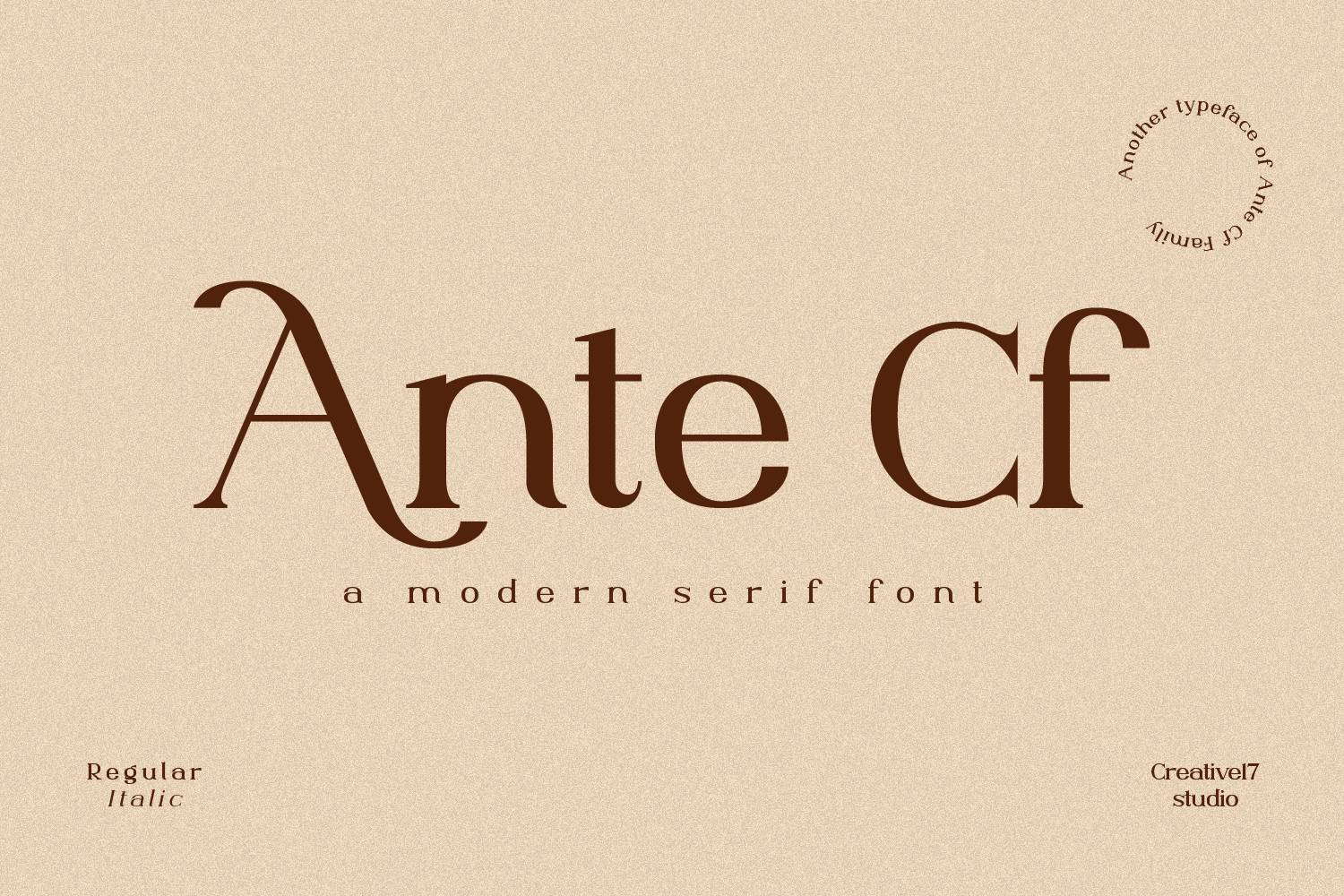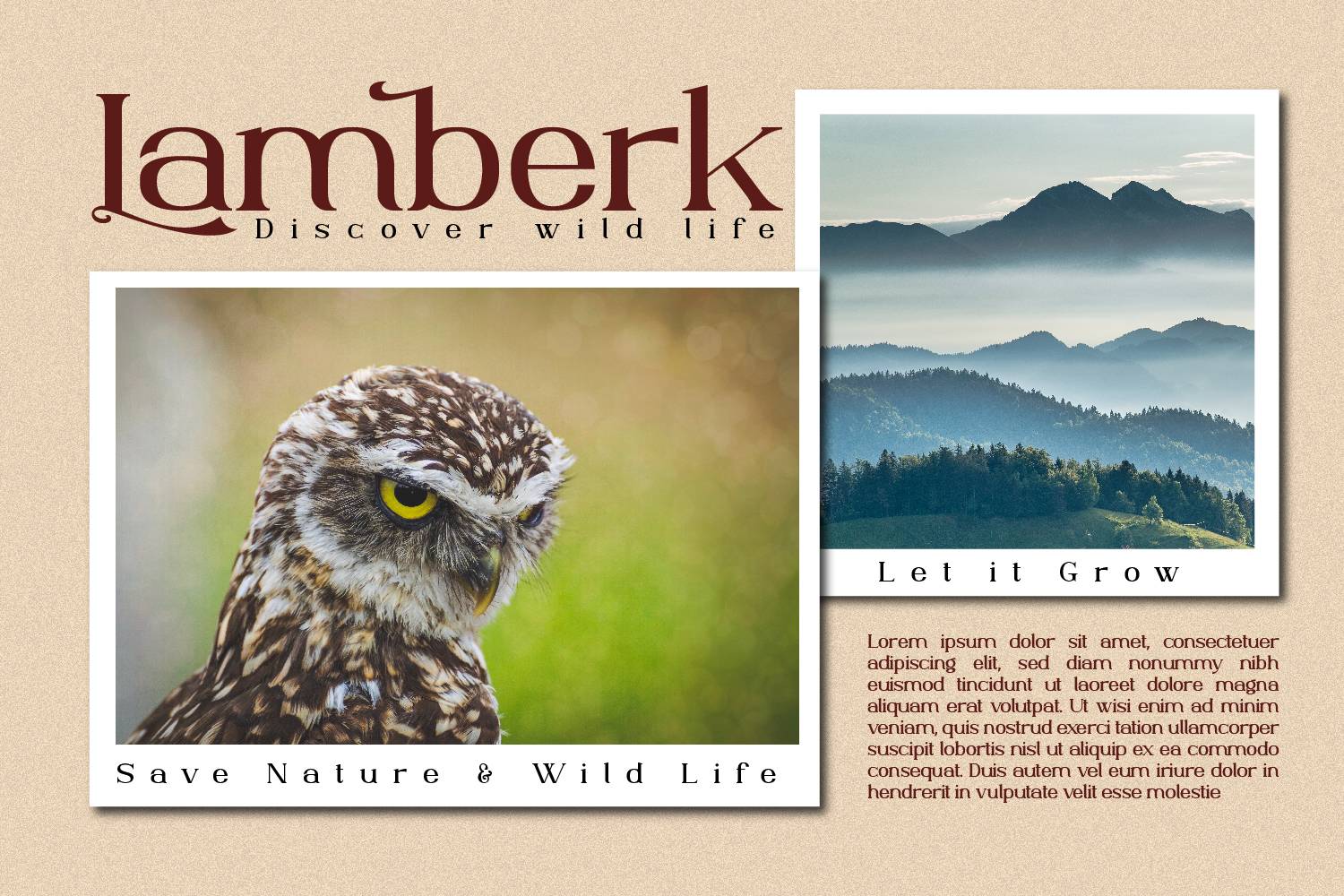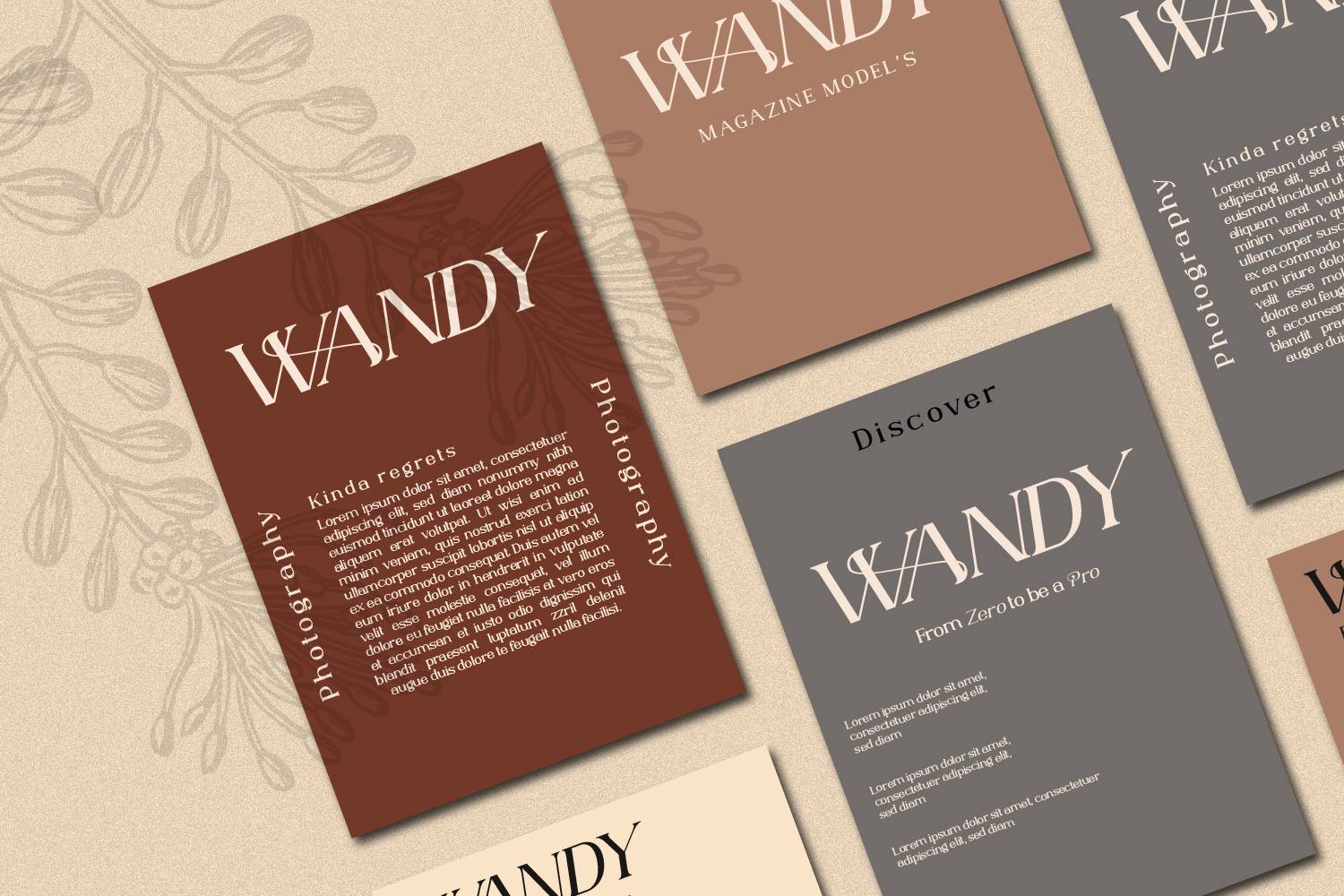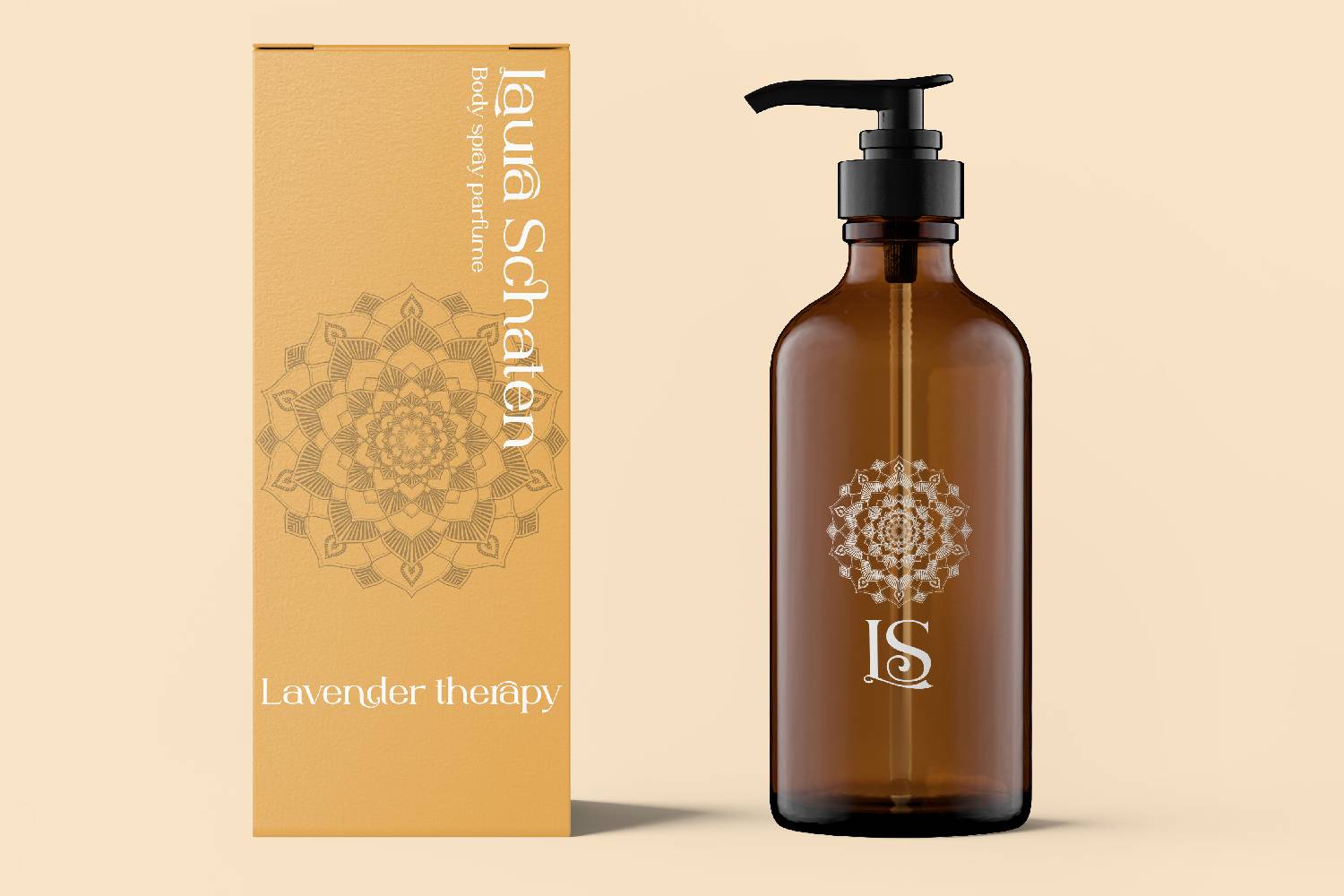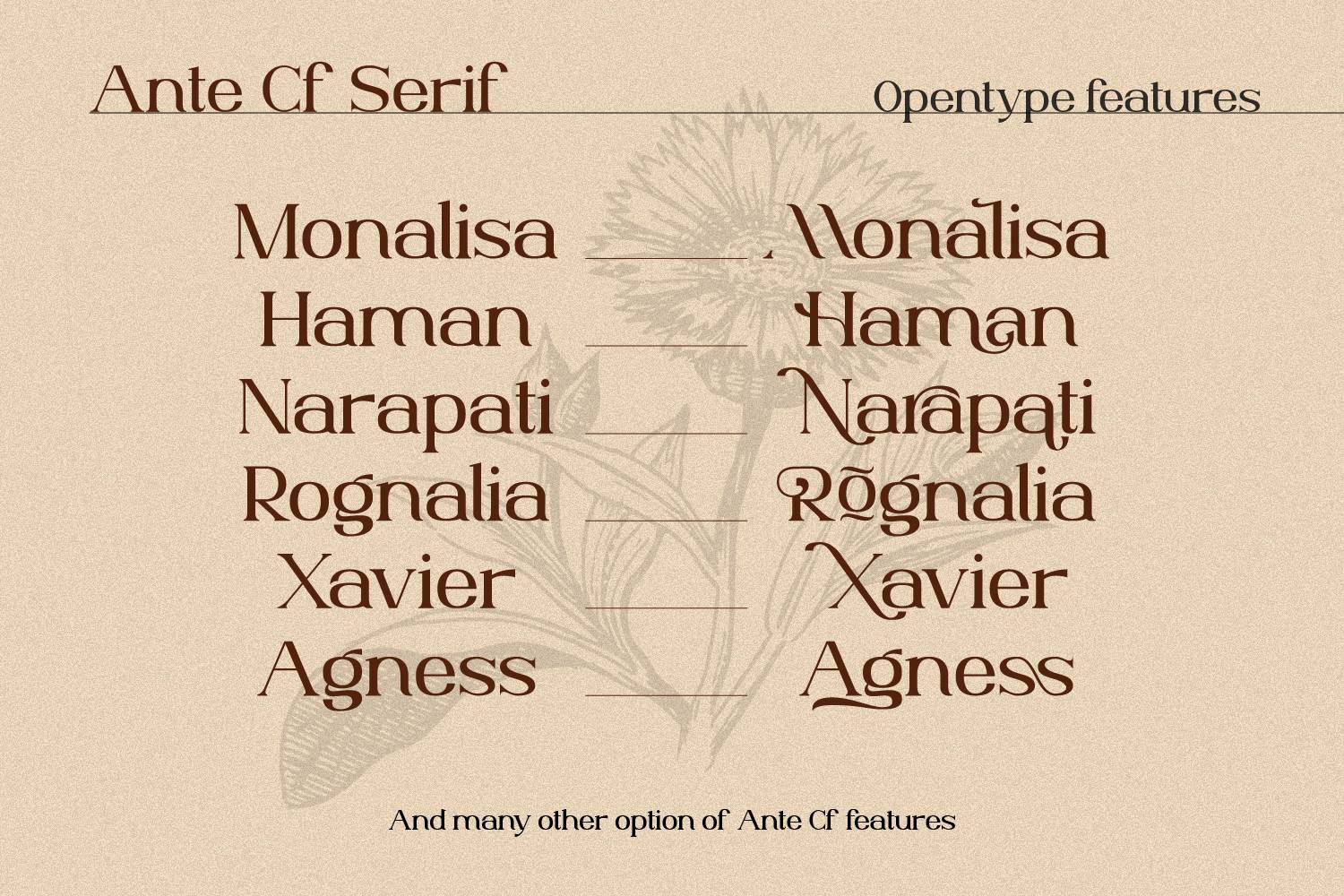
Ante Cf Serif is an elegant, modern serif font with a high contrast between thick and thin strokes, featuring delicate, sharp serifs and a refined italic style. Its slender, slightly condensed letterforms and classic proportions give it a sophisticated and stylish personality, ideal for luxury branding, editorial headlines, and fashion-forward graphic design. This font works beautifully where a touch of grace and refinement is desired, making it perfect for upscale logos, magazine titles, and elegant print projects.
Ante Cf Serif Font
About Ante Cf Serif Font